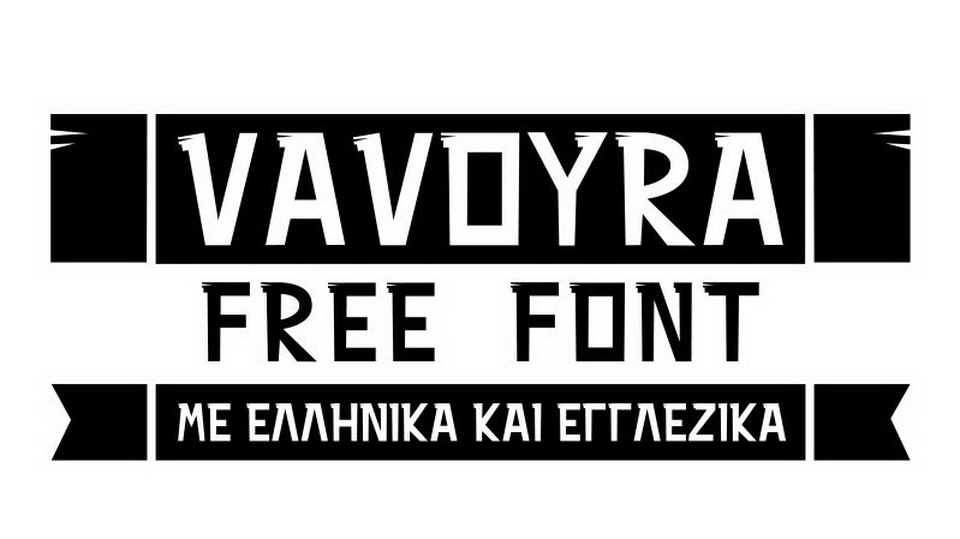
Download Vavoura font, a creative display typeface that features Greek and Latin uppercase letters. Vavoura font fits best for posters, headlines, bold statements, covers and other artworks.